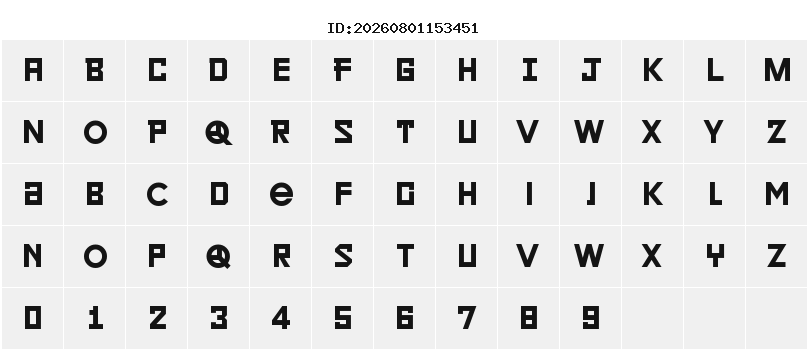
LECO 2014.ttf is a modern, elegant sans-serif font designed for ultimate readability and visual harmony. Perfect for branding, headlines, web design, and print materials.